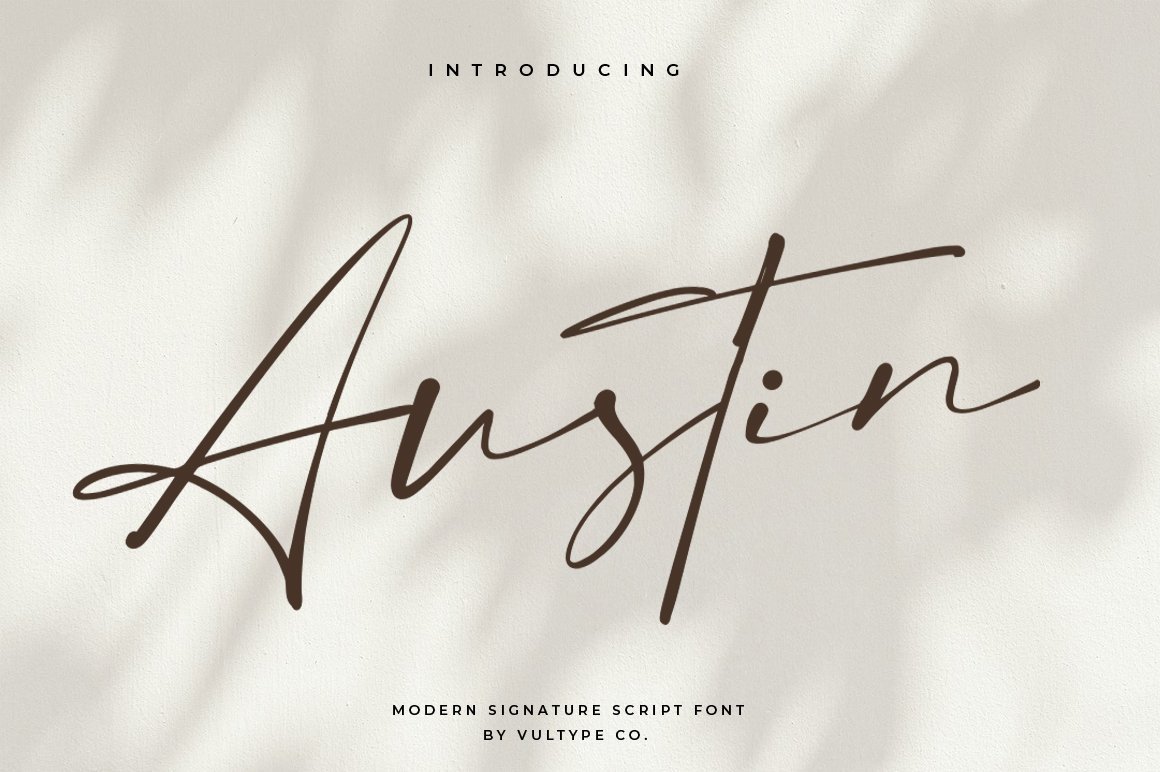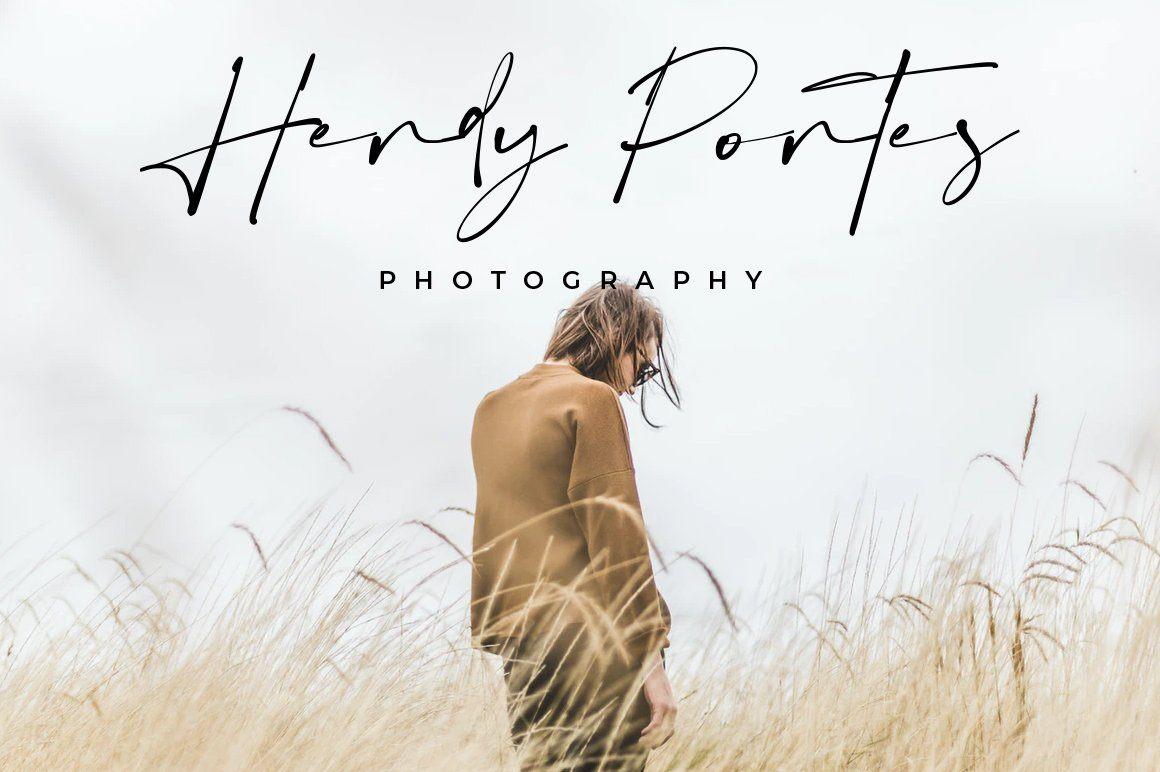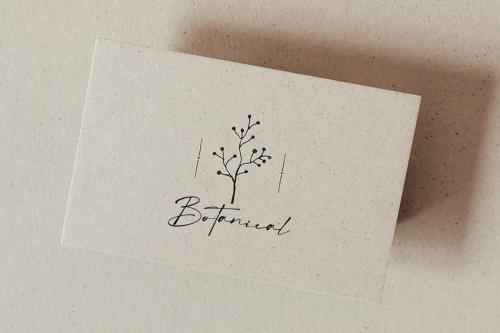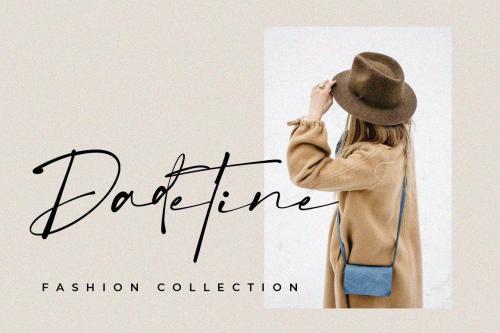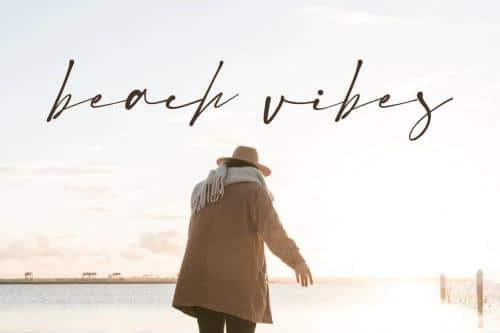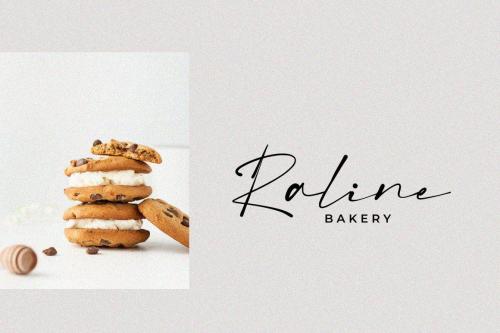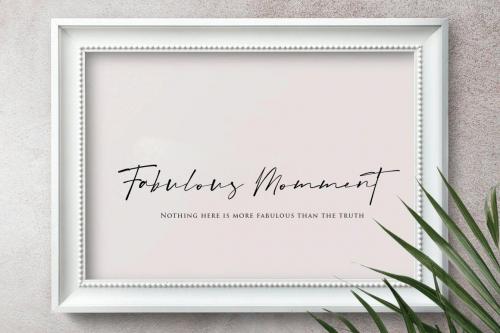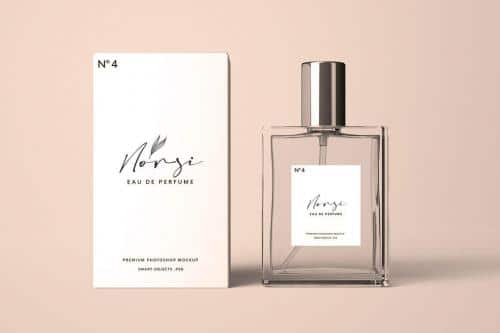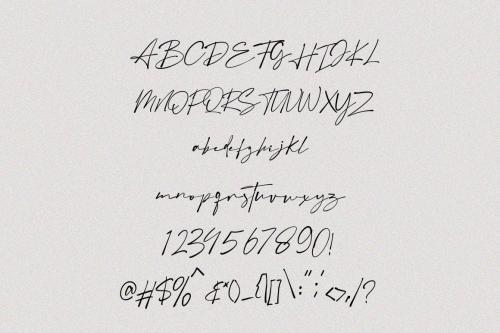
Austin Signature Script Font is a flowing handwritten font, described by an elegant touch, perfect for your favorite projects. Fall in love with its incredibly distinct and timeless style and use it to create spectacular designs!
It easily cooperating together For Magazine, Movies, or Book Titles. For Photography, Wedding Invitation, Restaurant Menu or T-shirt Design. For Flyers, Banner Ads, web and printing. From Food and Fashion to a Cosmetics product.